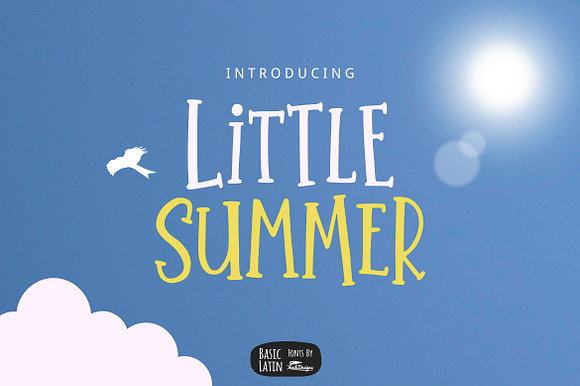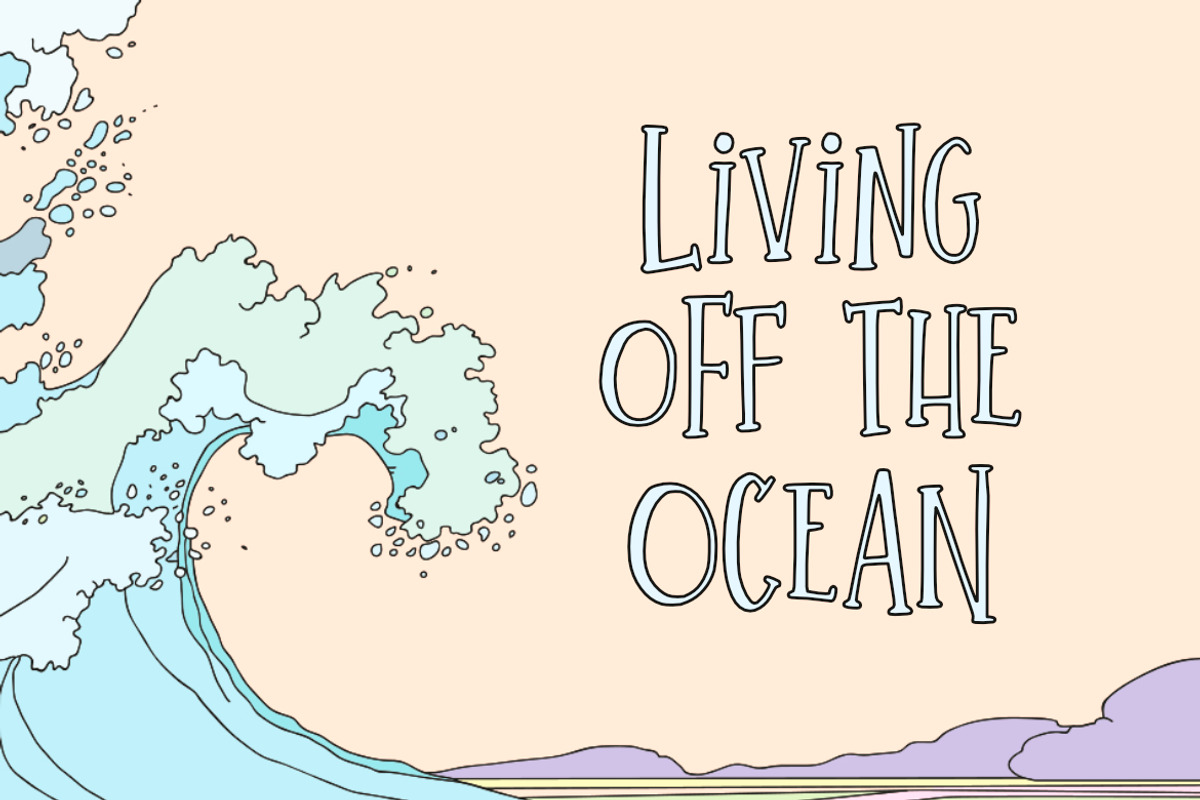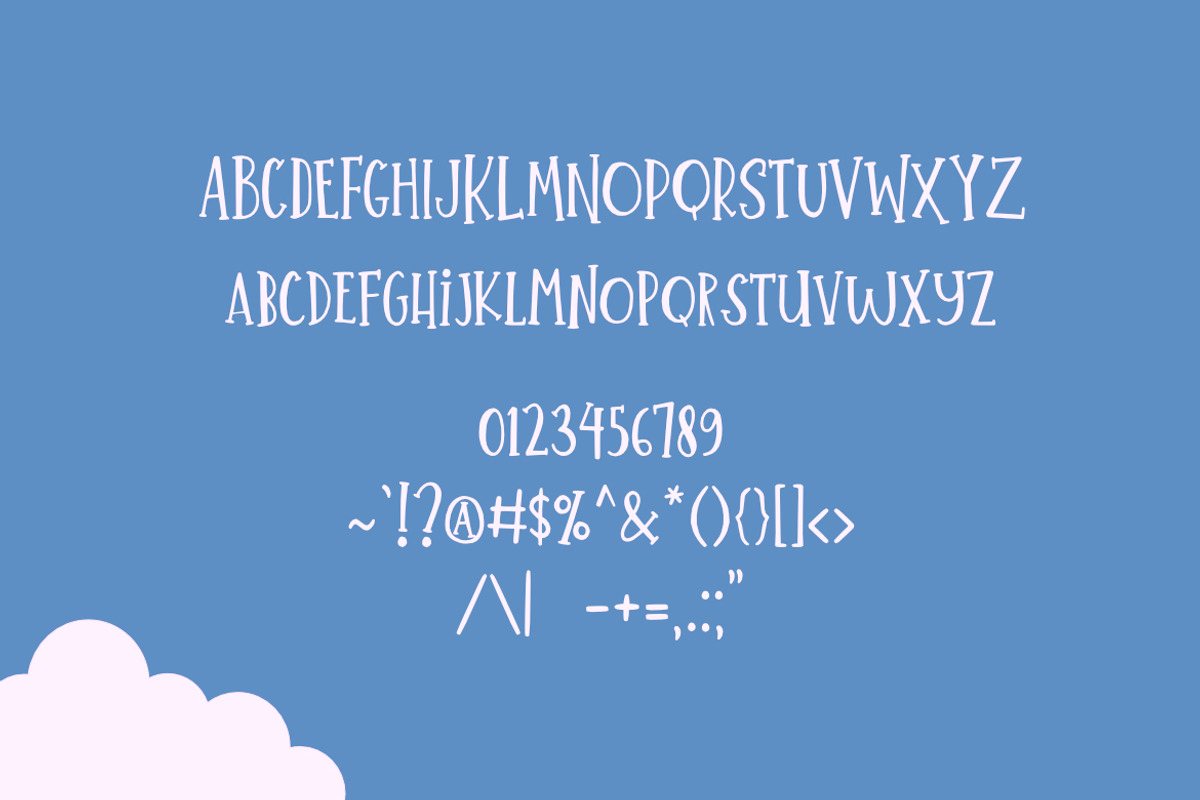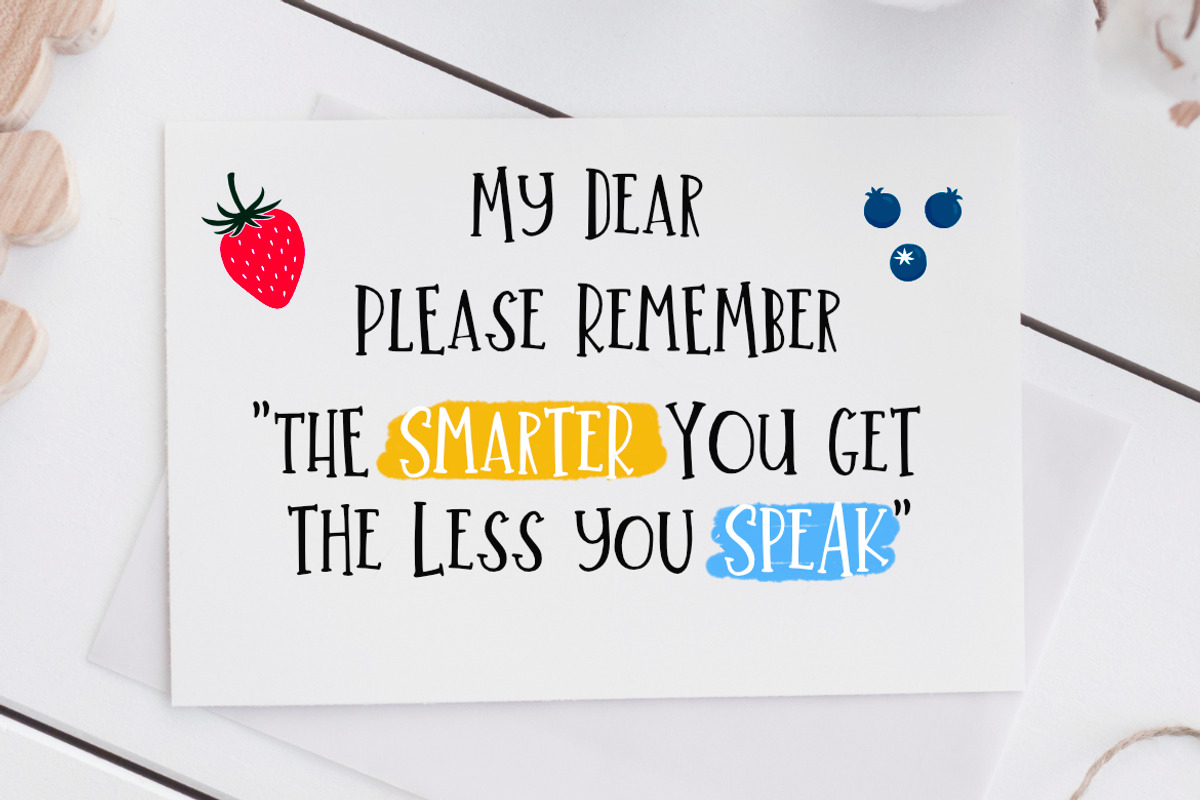
Little Summer Cute Font
Simple fun and cute all caps or uppercase font , suitable for many project children book, quotes, logo , heading , title etc.
Little Summer Cute Font by YandiDesigns fits naturally into Branding, posters, packaging, typography.